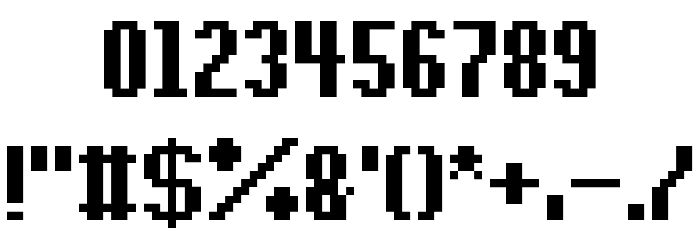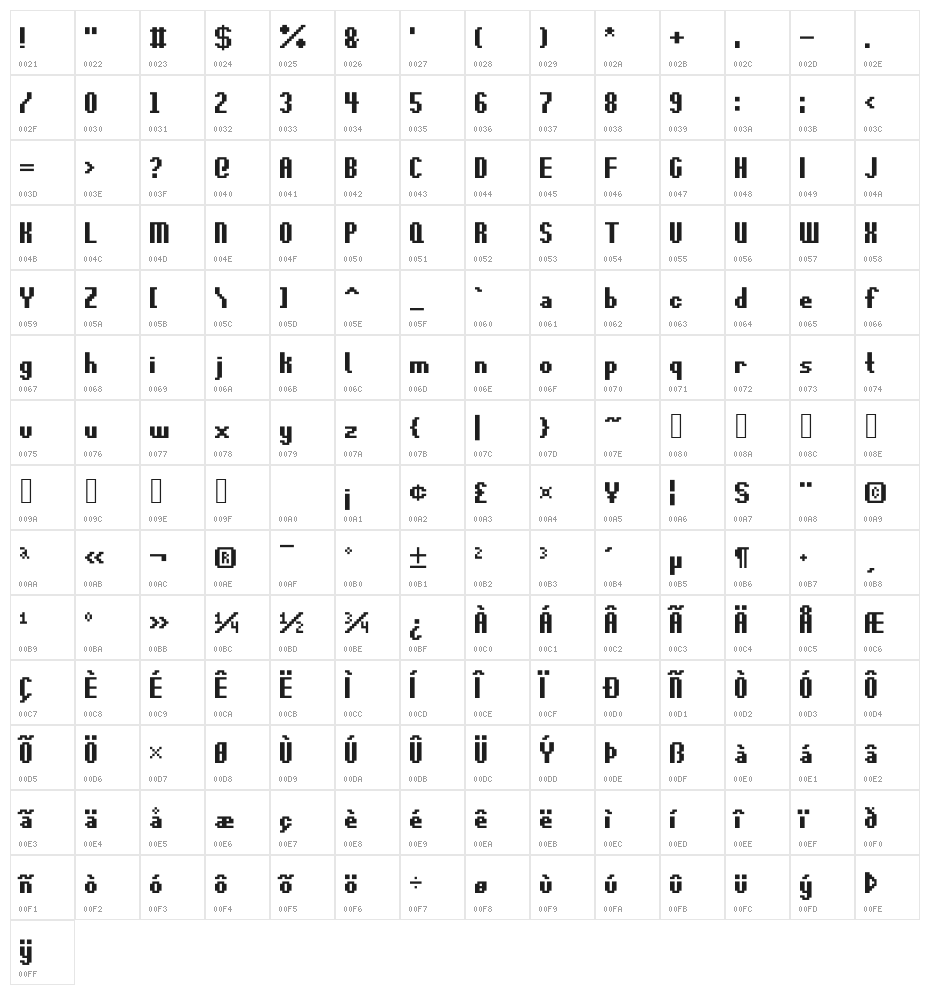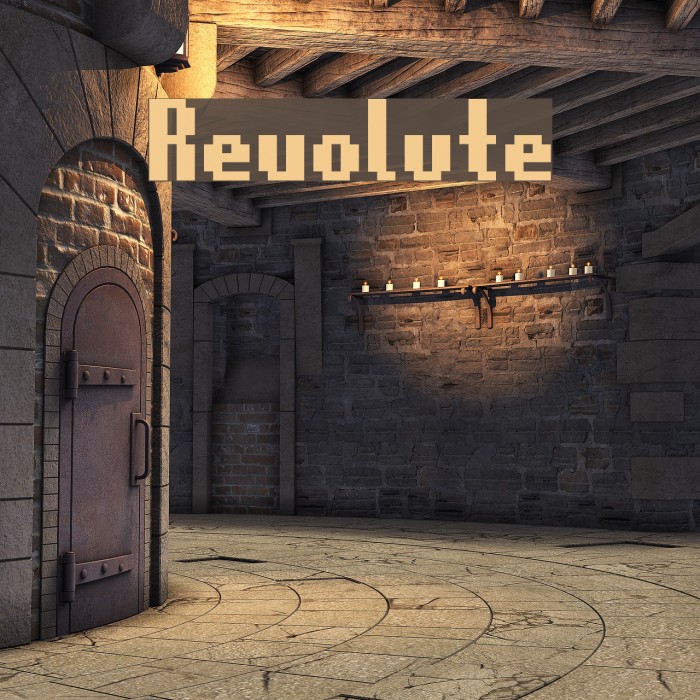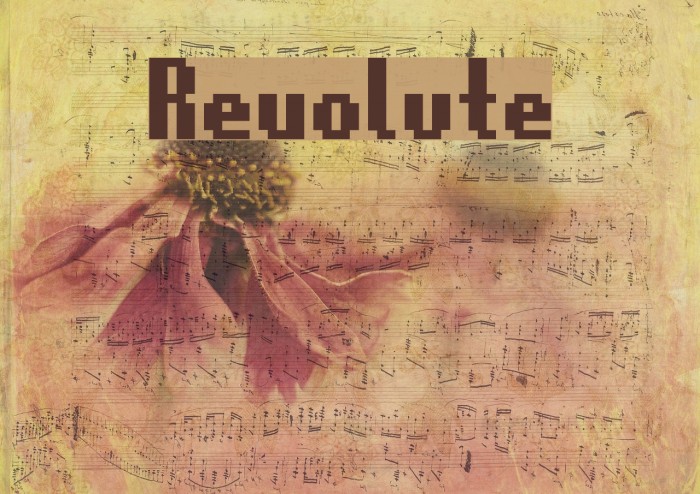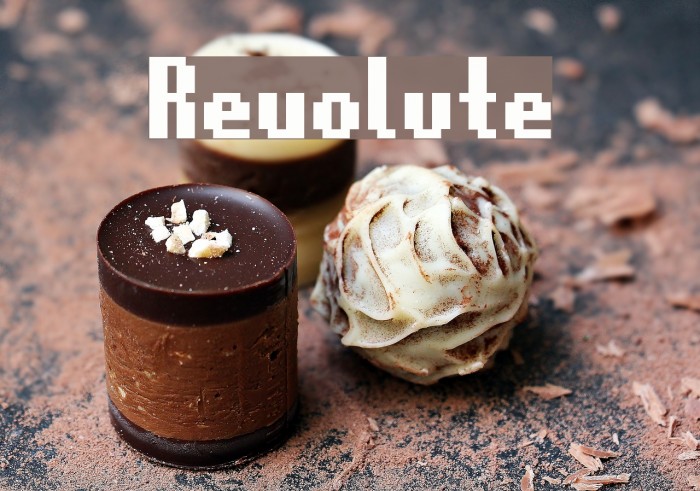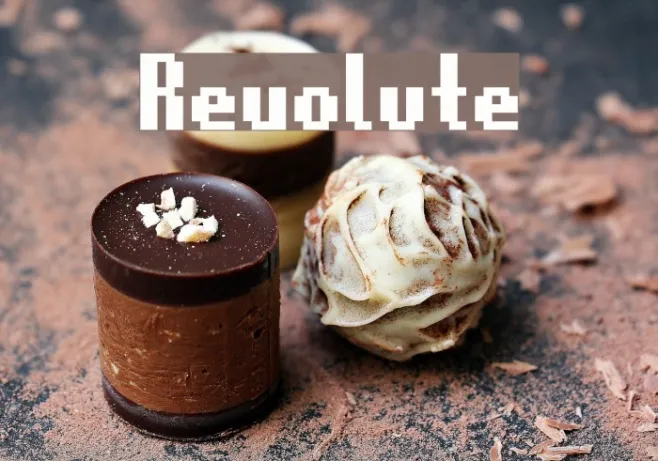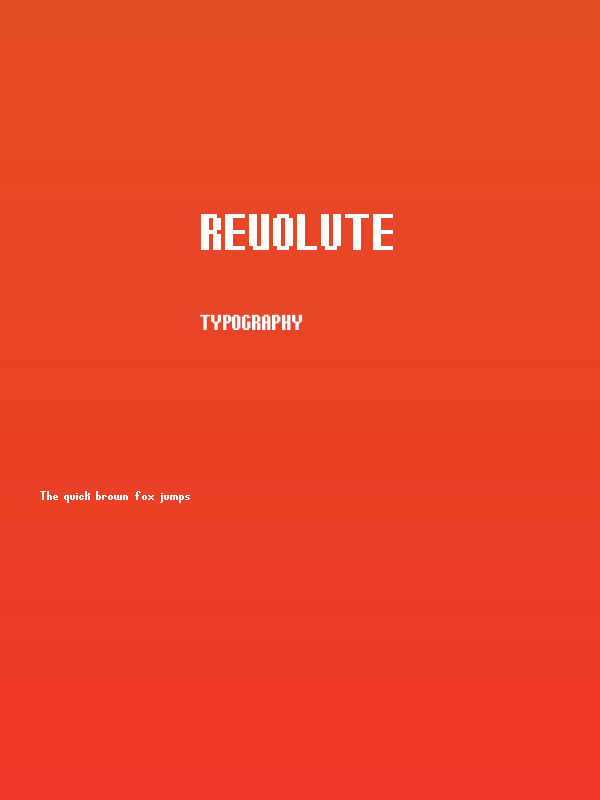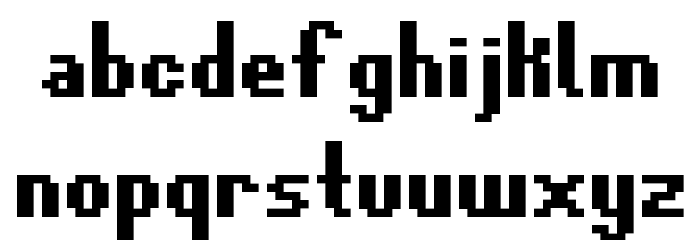
Revolute Font
Revolute Description
This font features a bold, geometric style with a pixelated, blocky appearance reminiscent of early digital or video game typography. The characters are uniformly designed with sharp edges and consistent stroke widths, creating a cohesive and structured look. The uppercase and lowercase letters maintain a similar width, enhancing the font's uniformity. Numbers and special characters are crafted to match the overall aesthetic, making them easily legible while maintaining the font's distinct style. The font's design is both modern and nostalgic, evoking a sense of retro digital aesthetics.
| Overall Style | Modern, Retro |
| Proposed Projects | Ideal for video game design, digital art projects, retro-themed posters, and tech-related branding. |